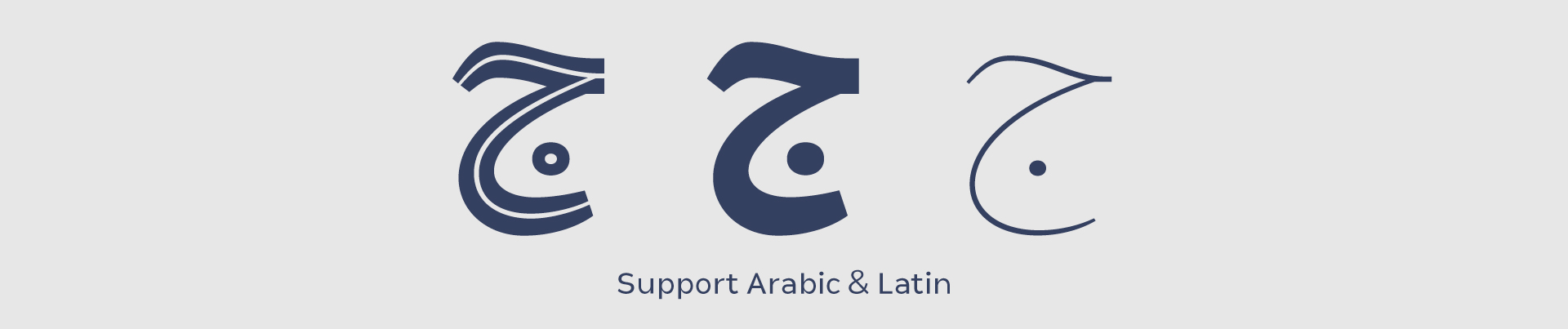
About TS Studio Font
Introduction:
We are very glad to share TS Studio font which is designed for TSfonts Type Studio’s new visual ID.
TS Studio Font a modern Naskh Script suitable for large companies, news channels, electronic newspapers, and advertising agencies.
Weights and Supported Languages:
TS Studio Font consists of 9 weights and one inline style.
It supports Extended Latin and Arabic.
Usage:
In headlines, texts, websites, posters, visual ID, and printing.
Designing & Developing: